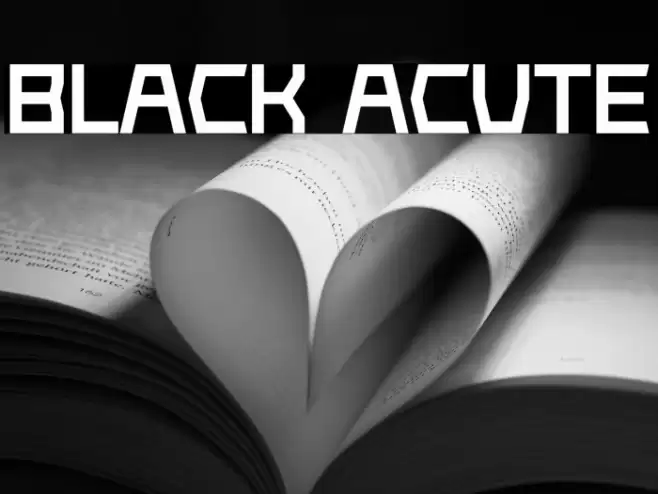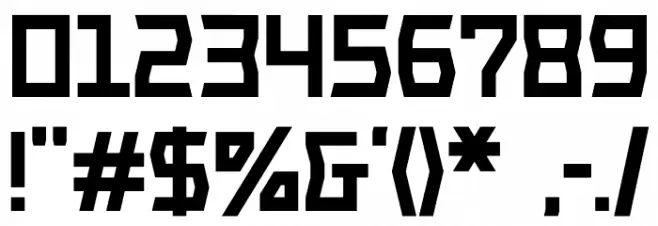
Black Acute Font
Black Acute Description
This font features a bold, angular design with a futuristic and geometric aesthetic. The characters are constructed with sharp edges and straight lines, giving a sense of precision and modernity. The uppercase letters are particularly striking, with a uniform height and consistent stroke width that enhances readability. The numbers and special characters maintain the same angular style, ensuring a cohesive look across all elements. This font's unique style makes it stand out, ideal for projects that require a strong visual impact.
A bold, angular font with a futuristic and geometric design from Uncategorized fonts.
- Proposed Projects: Ideal for technology branding, sci-fi themed projects, video game titles, and modern posters.